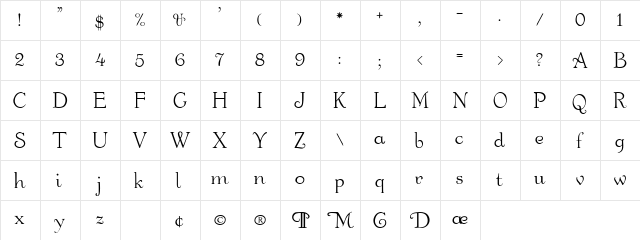
Bauderie Script SSi Regular
Bauderie Script SSi brings a calligraphic fluidity to the page — its connecting strokes and expressive curves give it an unmistakably human quality.